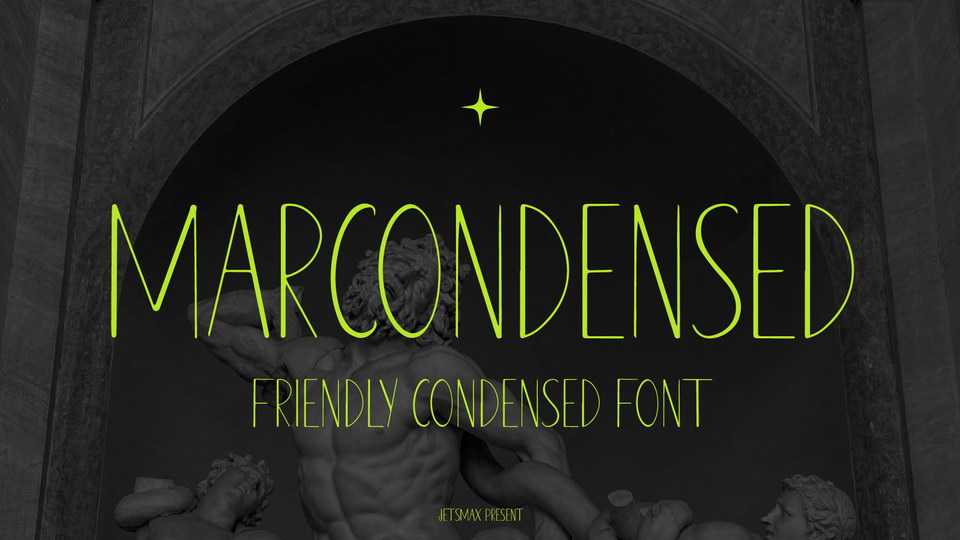
Download Marcondesed font, a friendly condensed font that carefully made to match with any kind of design projects. With its simple yet elegant style, this font will make your projects catch anyone’s attention.
Designer: Jetsmax Studio